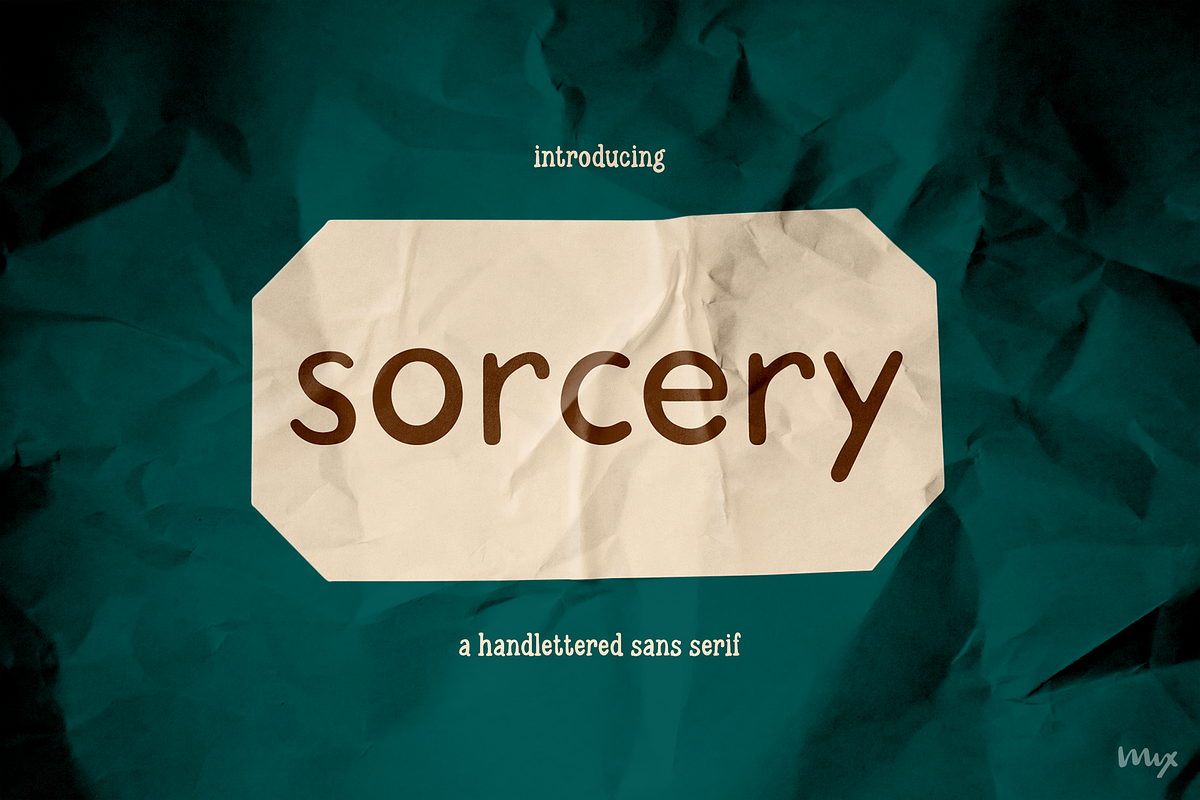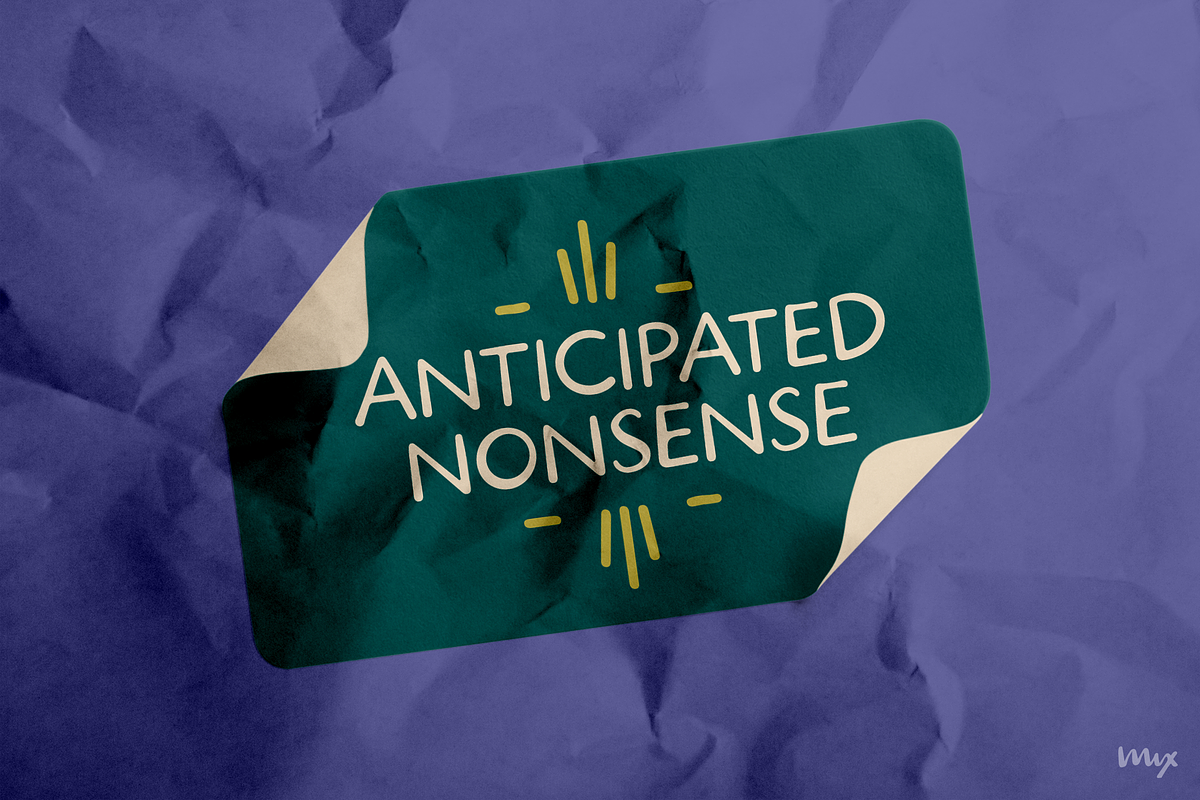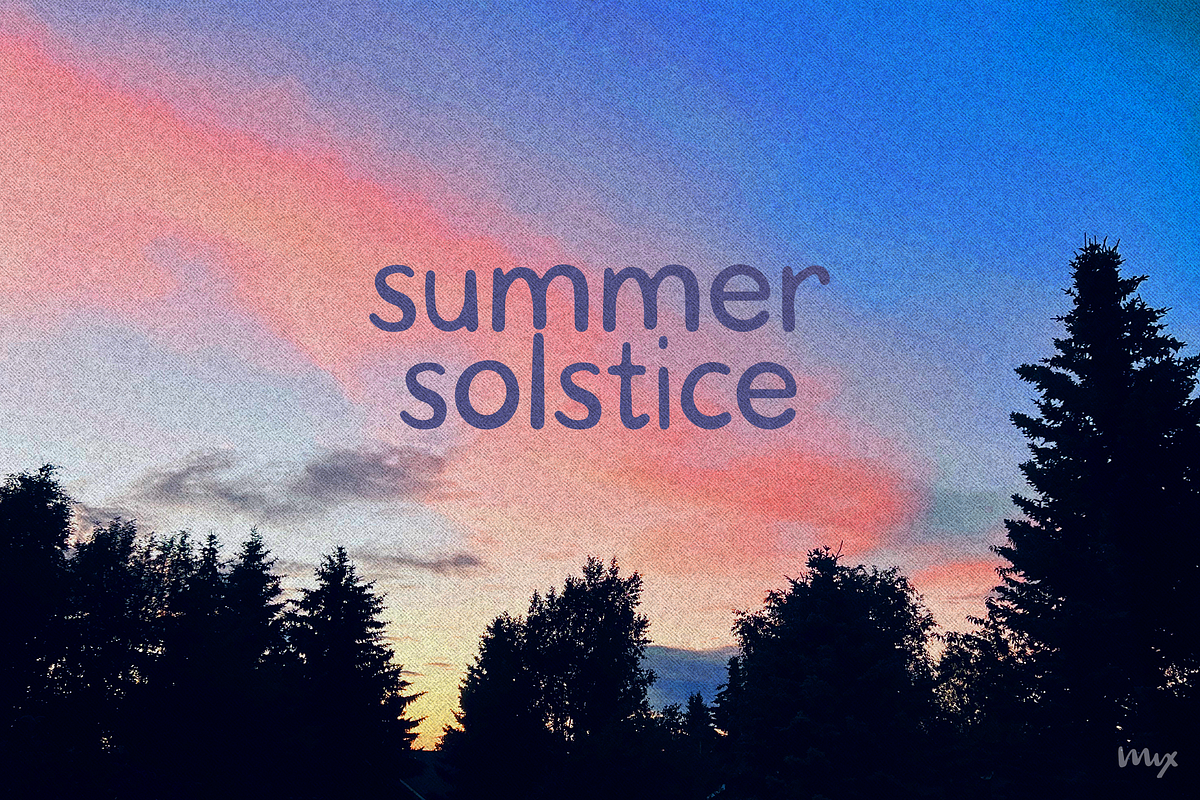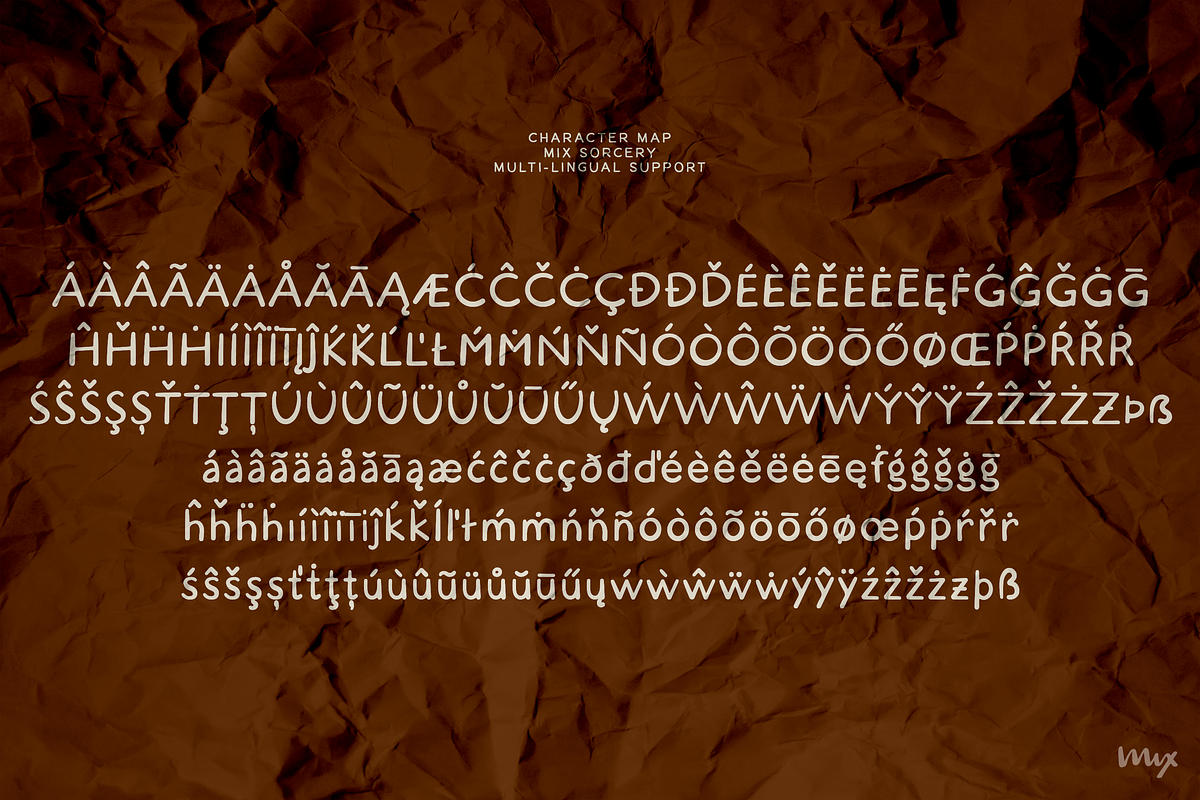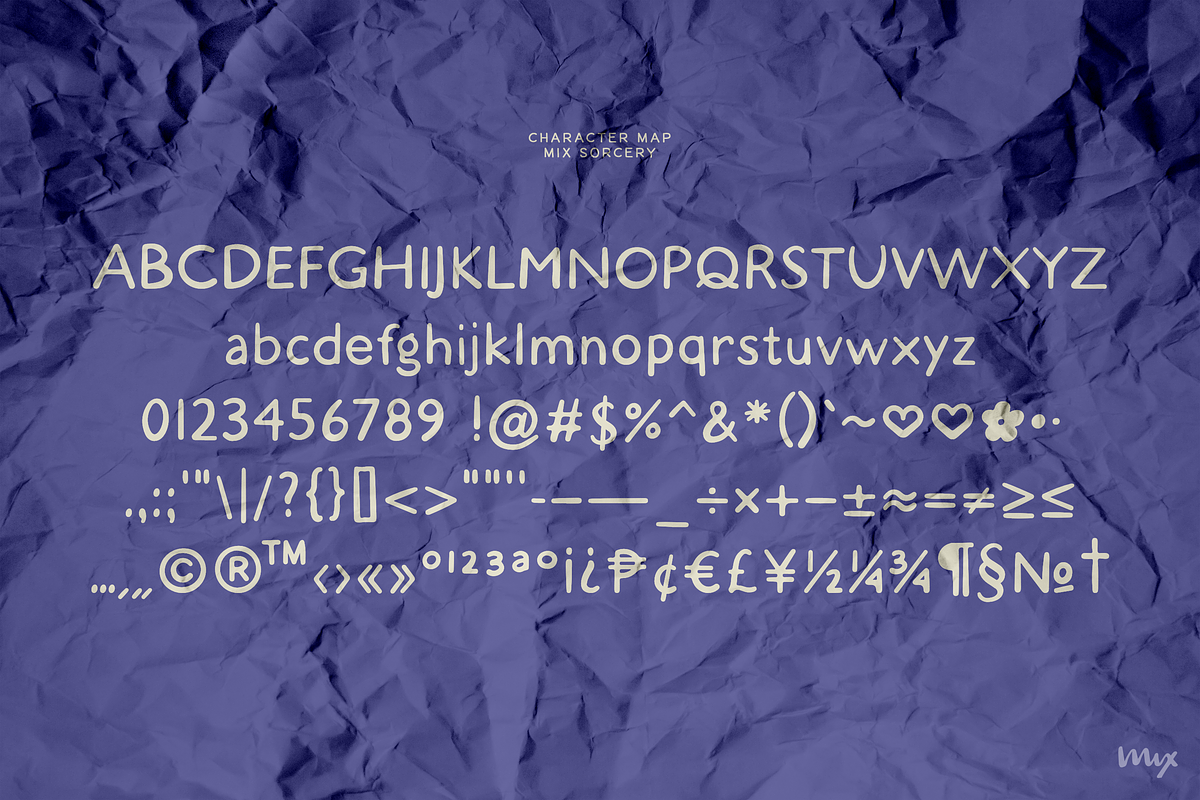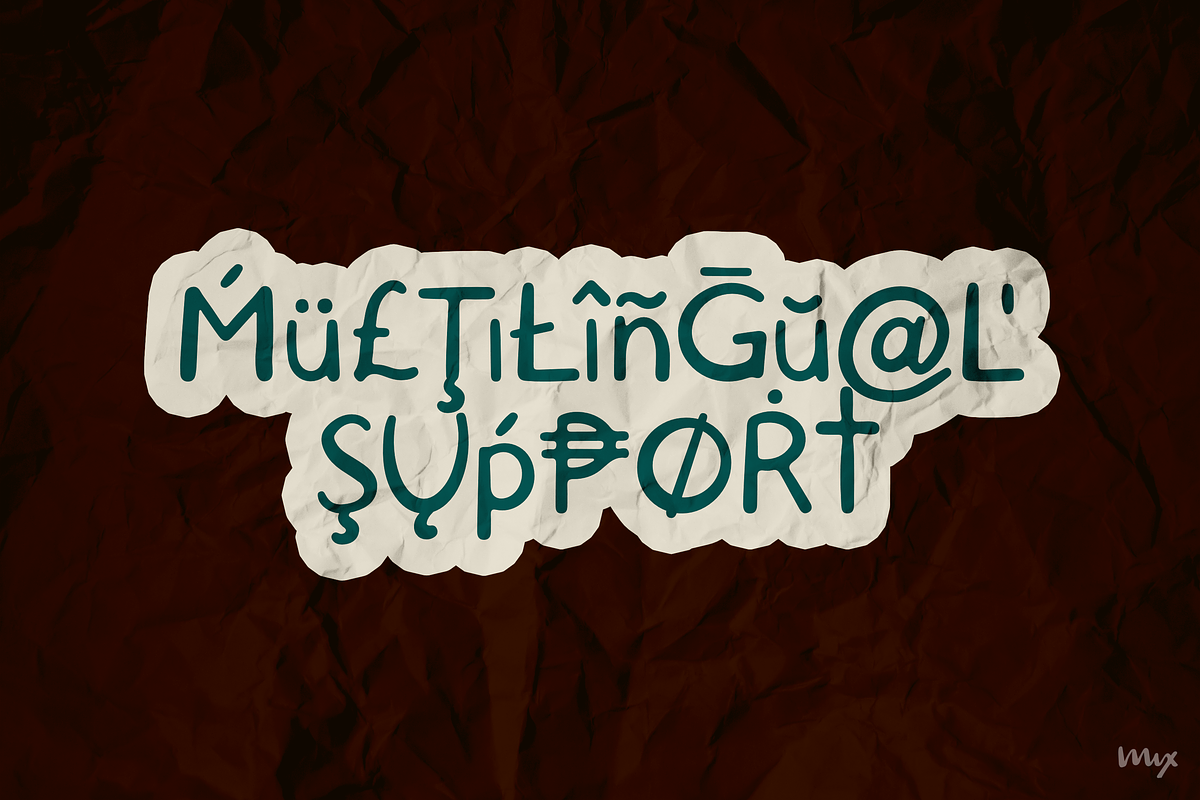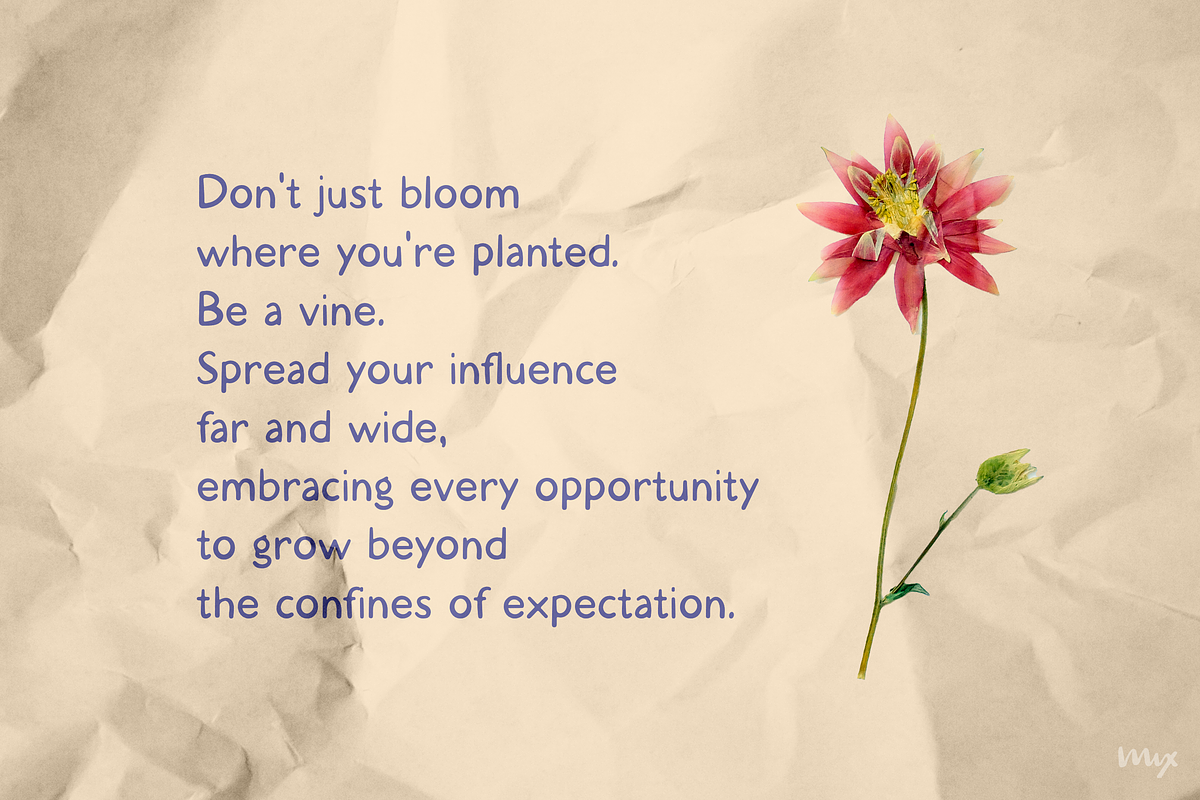
Sorcery — A Handwritten Sans Serif
Conjure up some magic with SORCERY, a handlettered sans serif font with multilingual support. Crafted with a fountain pen in mind, this font is brimming with personality and charm. Perfect for social media graphics, posters, video text, and more, SORCERY‘s clean vector shapes ensure readability at any scale.
Whether you’re a designer, blogger, vlogger, or small business owner, SORCERY adds a touch of enchantment to your projects. Its versatility makes it ideal for packaging, headlines, book covers, and movie posters. With support for over 100 languages, you can cast your spell worldwide. SORCERY is ready to bring your creative visions to life.